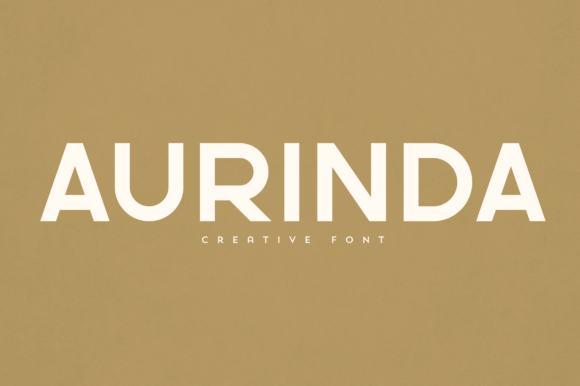
The Designer’s Delight: Aurinda Font
I’ll never forget the time I was working on a branding project for a trendy home decor store. I had the perfect color palette, the ideal imagery, but I was stuck on finding the right font. The client wanted something elegant, yet playful; something that would make their logo stand out. That’s when I stumbled upon Aurinda Font. It was love at first sight! 💕
Aurinda Font: The Perfect Elegance
Aurinda is an elegant and versatile sans serif font that will make your typography truly unique! It will enchant every logo, branding, headline, or plain text! This font is perfect for branding projects, home-ware designs, product packaging, magazine headers – or simply as a stylish text overlay to any background image.
- ✨ Elegant and sophisticated design
- ✅ Highly versatile and adaptable
- 🎉 Wide range of OpenType features and glyphs
- 👍 Perfect for both digital and print projects
While Aurinda Font is an amazing addition to any design project, there are a few things to keep in mind. 🤔
- ⚠️ Some of the more intricate OpenType features may not work properly in older software or browsers.
- ⚠️ The font may not be suitable for very long blocks of text, as it is designed primarily for headlines and titles.
The Story Behind Aurinda Font
Aurinda Font was designed by a team of typographers who wanted to create a font that was both elegant and versatile. Inspired by classic sans serif fonts, they added a touch of sophistication and refinement to create a truly unique font. The result is a font that is perfect for a wide range of design projects, from branding and advertising to packaging and editorial design.
Q: What is Aurinda Font?
A: Aurinda Font is an elegant and versatile sans serif font designed for a wide range of design projects.
Q: Is Aurinda Font suitable for digital projects?
A: Yes, Aurinda Font is perfect for digital projects, including websites, social media graphics, and digital advertising.